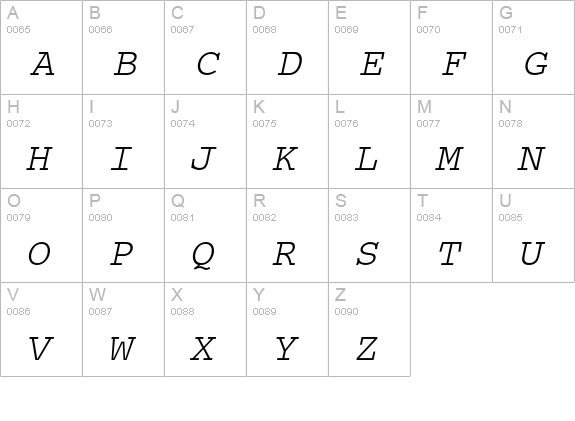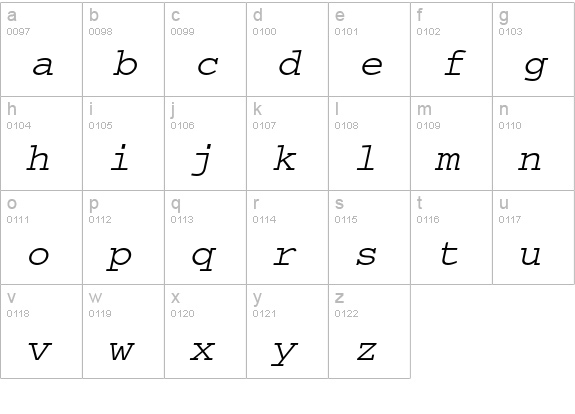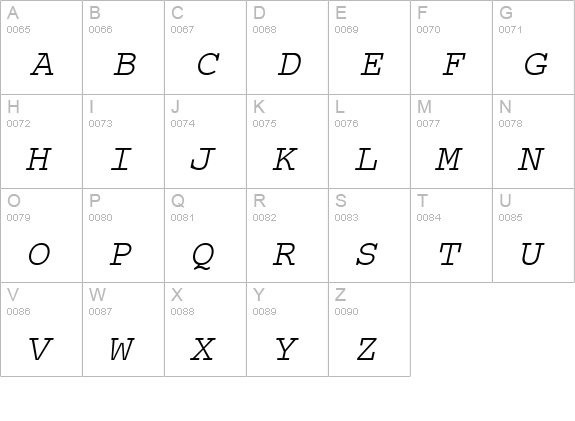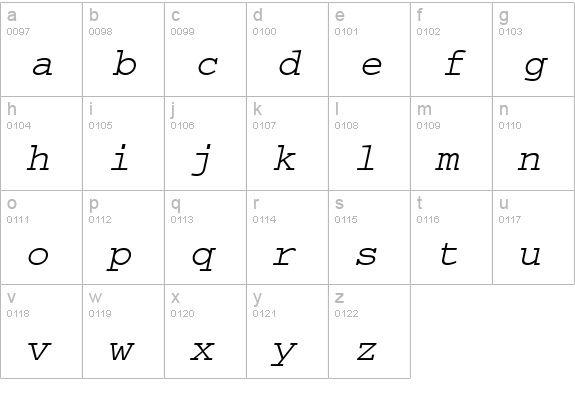
Courier Oblique Font Details
Courier Oblique is a distinctive, italic variant in the Courier typeface family \xE2\x80\x94 well suited to design and typography projects.
Courier Oblique is a classic and versatile font that brings a touch of elegance to any design project. With its slanted style, this font exudes a sense of movement and dynamism while maintaining a professional and refined look. Whether you're creating documents, posters, or web graphics, Courier Oblique adds a distinctive flair that sets your work apart. What's even better is that Courier Oblique is available for free download at FontsMarket.com. This means you can easily access this stylish font and enhance your projects without any cost. Don't miss out on the opportunity to add Courier Oblique to your font collection today!